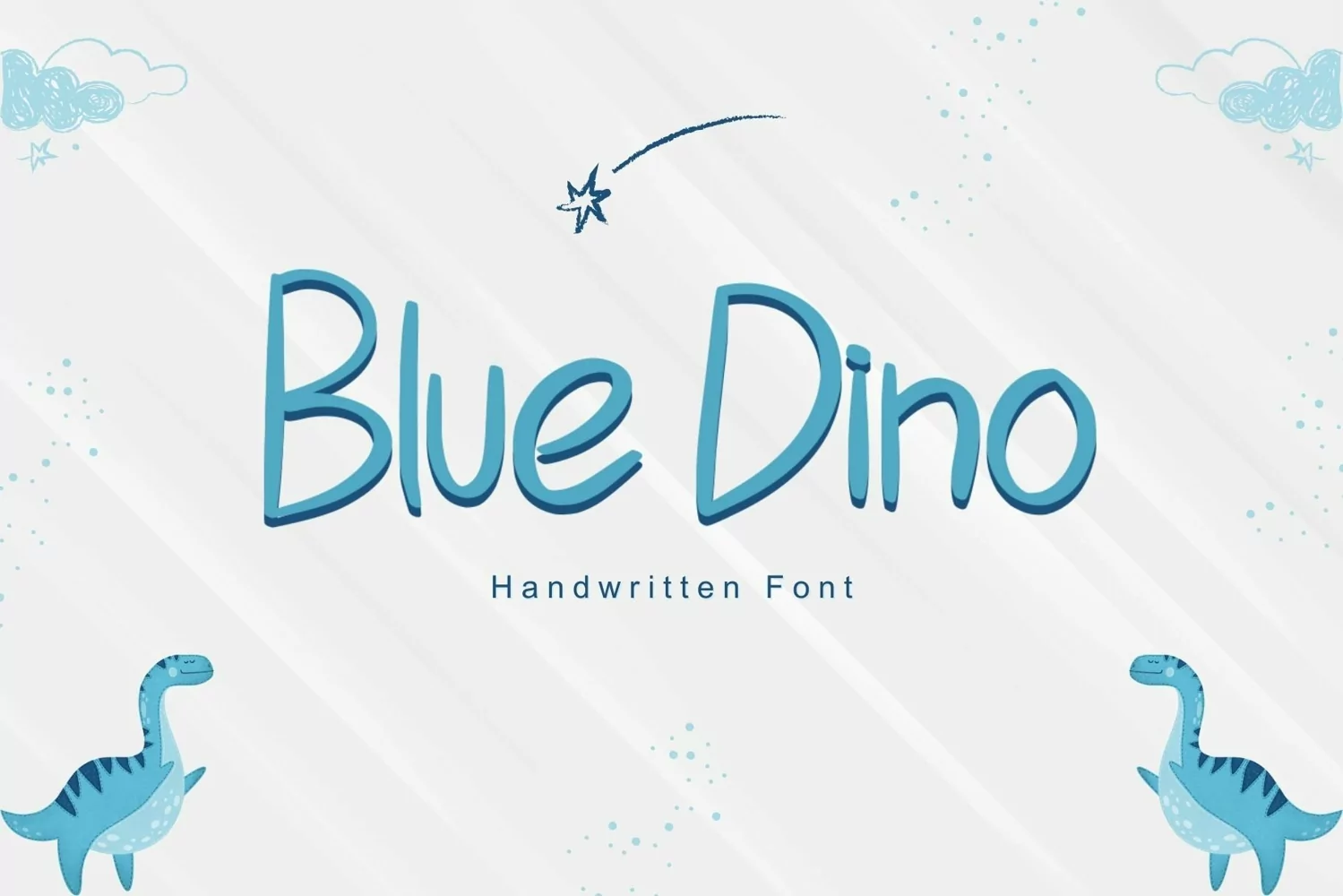
Dino Blue is a sweet and friendly handwritten font. Its natural and unique style makes it incredibly fitting to a large pool of designs. The only limit is your imagination!